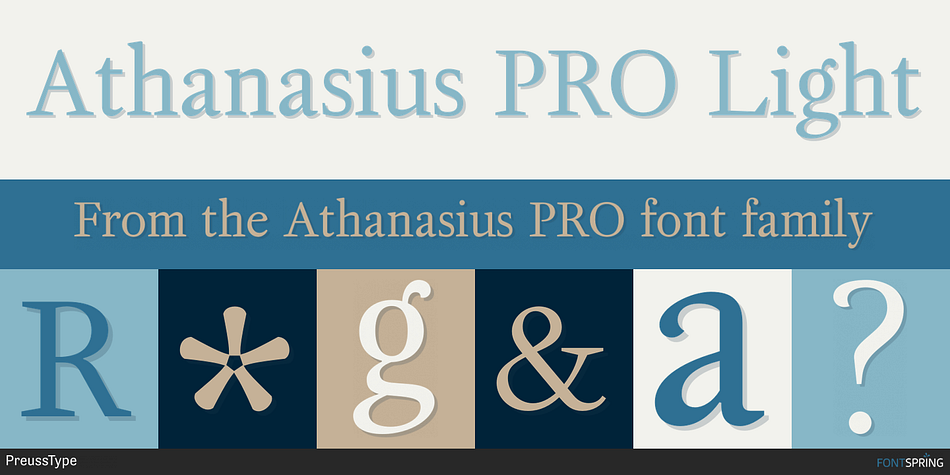
Athanasius PRO Light
Athanasius PRO is a serif font family. This typeface has twelve styles and was published by preussTYPE.
Typesetting for books, magazines or annual reports requires font families with special qualities: excellent readability, a generous range of weights with italics and small caps, multiple figure sets (lining, oldstyle, table) and ample language coverage.
Athanasius is such a font. The Baroque fonts are one of my passions. Whenever possible, I feel the old forms of glyphs and create a new, modern font with a touch of opulence of the Baroque.